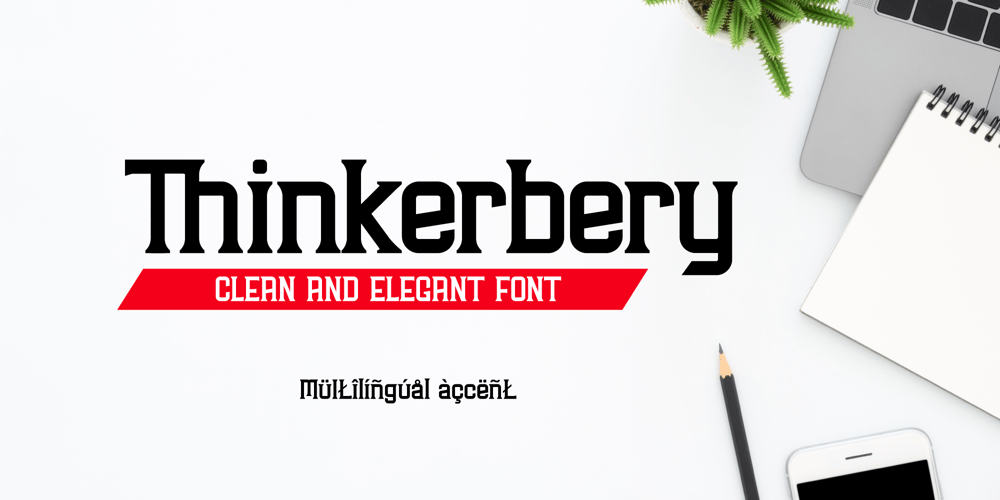
Thinkerbery Font Family was designed by Agustian Eko Saputro, Aprilia Nurina Putri and published by Mightyfire. Thinkerbery contains 1 styles and family package options. Need a semi-formal yet unique font? Thinkerbery is the answer! The look of Thinkerbery is like a digital typing style but still has its uniqueness.We bring a strong looks for your text. Enjoy in creating unique arts using Thinkerbery! ๐